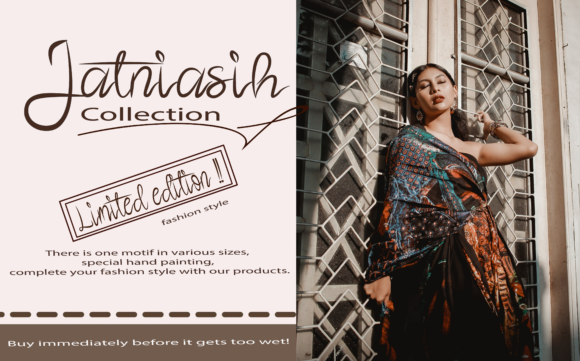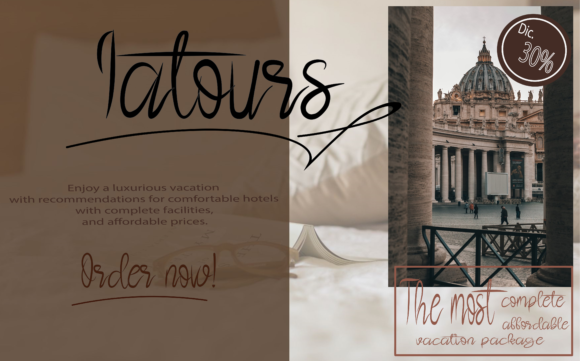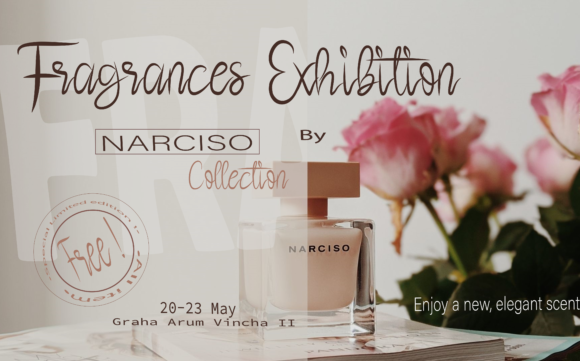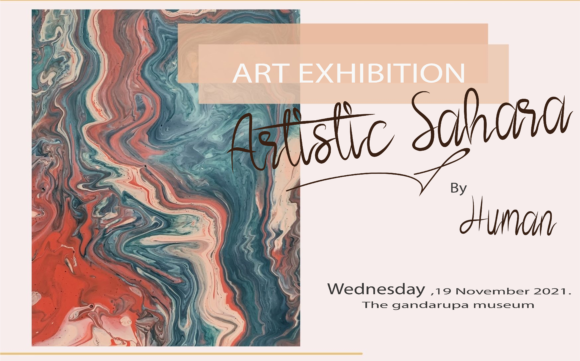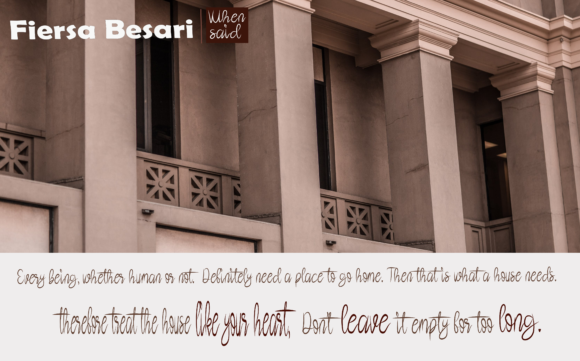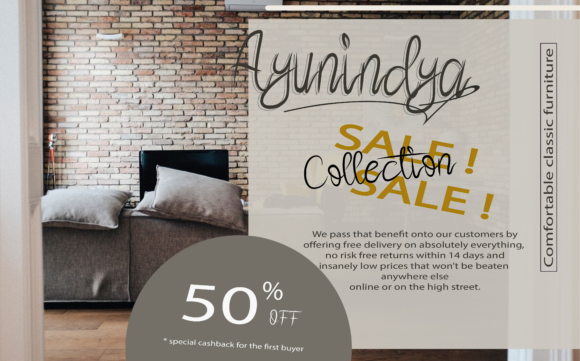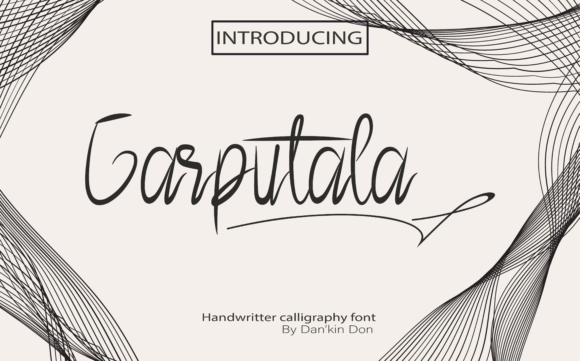
Discover the Elegance of Garputala Font: Elevate Your Designs with a Touch of Sophistication
Are you on the hunt for a font that exudes elegance, sophistication, and a dash of modern flair? Look no further than the Garputala Font. This exquisite handwritten font is masterfully designed to capture the hearts of designers and crafters alike, making it a true favorite in the world of typography.
The Essence of Garputala Font
Garputala Font strikes the perfect balance between classic calligraphic influences and contemporary freshness. Its unique blend of traditional and modern elements makes it an ideal choice for a wide range of design projects, from wedding invitations and branding materials to digital content and craft projects.
What Makes Garputala Font Stand Out?
- Classy Calligraphic Influences: Garputala Font boasts beautiful, flowing lines that are reminiscent of traditional calligraphy. Its elegant strokes and curves add a touch of sophistication to any design.
- Contemporary and Fresh: Despite its classic roots, Garputala Font feels modern and fresh, making it perfect for designers who want to create unique and eye-catching content.
- Versatility: This font is incredibly versatile and can be used for a variety of design projects, including but not limited to, logos, branding, social media graphics, and craft projects.
- Easy to Read: One of the key features of Garputala Font is its readability. Even at smaller sizes, it remains clear and legible, making it suitable for body text as well as headings.
How to Use Garputala Font in Your Projects
Integrating Garputala Font into your designs is a straightforward process. Here are a few tips to get you started:
- Pair it with Other Fonts: For maximum impact, try pairing Garputala Font with a sans-serif font for contrast. This combination works particularly well for headings and body text.
- Experiment with Sizes and Colors: Don’t be afraid to experiment with different sizes and colors to find the perfect combination for your design.
- Use it for Headings and Titles: Garputala Font shines when used for headings and titles. Its elegant appearance instantly elevates the look of your design.
Why Designers and Crafters Love Garputala Font
Designers and crafters around the world have fallen in love with Garputala Font, and it’s easy to see why. Its unique blend of elegance and modernity makes it a valuable addition to any design toolkit. Here are a few reasons why:
- Time-Saving: With Garputala Font, you can create stunning designs in a fraction of the time it would take with other fonts.
- Consistency: Using a single font throughout your project ensures consistency and professionalism.
- Emotional Connection: The elegant appearance of Garputala Font can help create an emotional connection with your audience, making your designs more impactful.
In conclusion, Garputala Font is a game-changer for designers and crafters looking to elevate their projects with a touch of sophistication. Its exquisite handwritten design, classy calligraphic influences, and contemporary freshness make it the perfect choice for a wide range of design applications. By incorporating Garputala Font into your toolkit, you’ll be able to create stunning designs that leave a lasting impression.
So why wait? Fall in love with Garputala Font and bring your projects to the highest levels of elegance and sophistication.